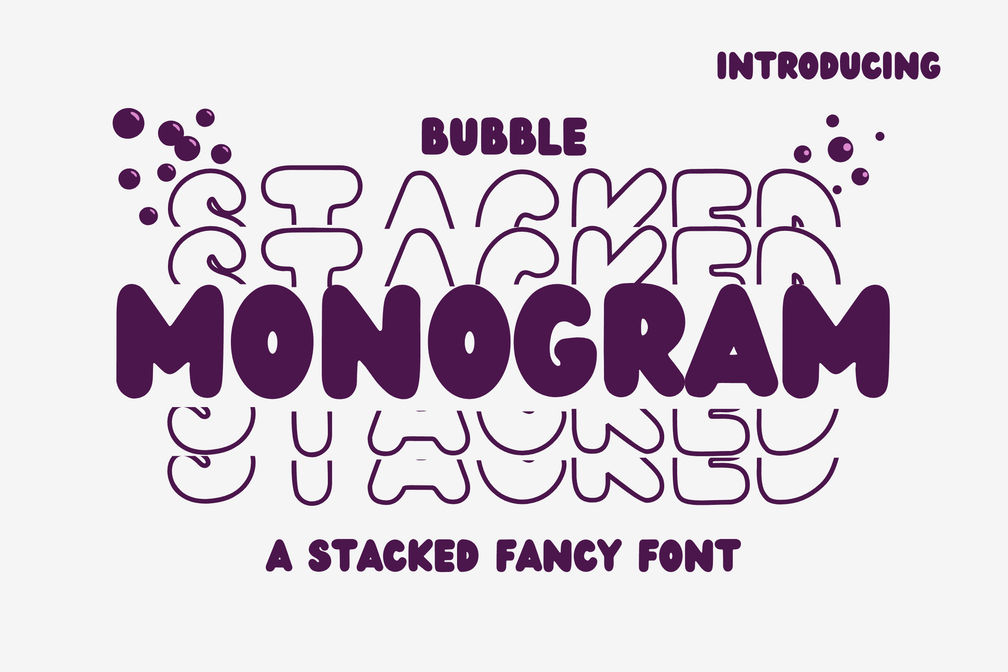
Bubble Stacked Monogram
Bubble Stacked Monogram – Fancy Stacked Font is a stylish and modern typeface designed to create eye-catching, layered typography. Perfect for monograms, branding, headlines, posters, invitations, and creative projects, this font features a bold bubble-like style combined with a stacked outline design, making it unique and playful. Whether you’re designing for digital or print, Bubble Stacked Monogram adds a fun and trendy touch to your work.
• Stacked and Bold Design: A combination of bubble-style letters with stacked outlines for a modern and dynamic look.
• Perfect for Monograms and Creative Typography: Ideal for logos, invitations, posters, social media, and more.
• Display Font: Designed for impactful and attention-grabbing text.
• Complete Character Set: Includes uppercase, lowercase, numbers, punctuation, and symbols.